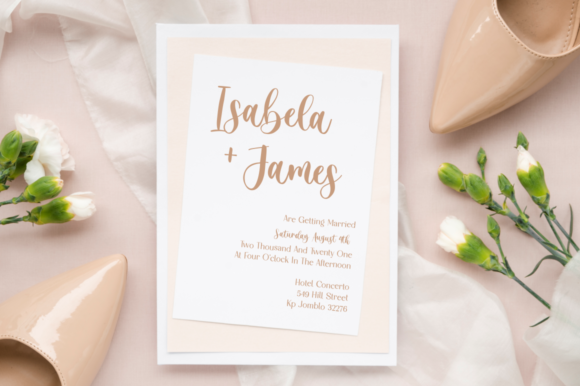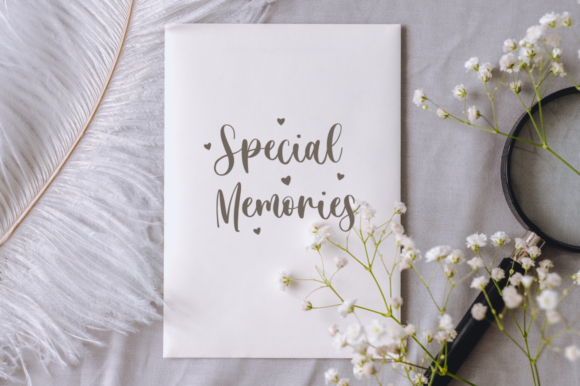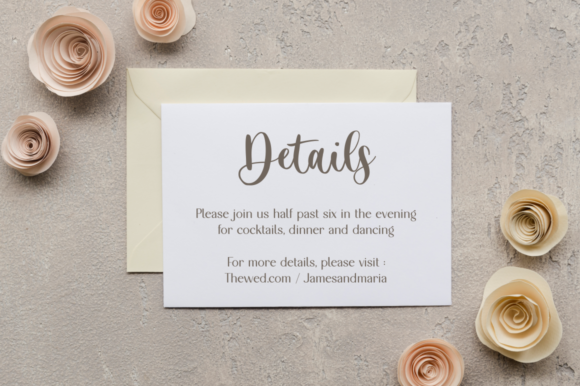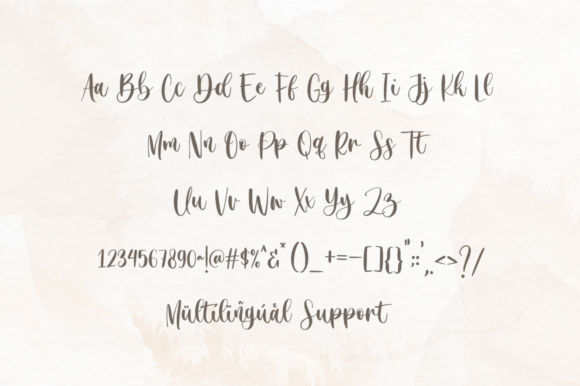
About Just Overthink Font
Indulge in the charm of Just Overthink, a sweet and cursive handwritten font that exudes a gentle and romantic essence. With its soft curves and flowing strokes, this font adds a touch of elegance and beauty to any design idea. Whether you’re working on wedding invitations, greeting cards, or any other project that requires a romantic and joyful touch, Just Overthink will elevate your designs to new heights.
The cursive nature of Just Overthink gives it a graceful and fluid appearance. Each letter is carefully crafted with intricate details, creating a delightful visual experience. The curves and loops of the font create a sense of movement and liveliness, making it a perfect choice for projects that aim to evoke emotions and convey a romantic atmosphere.
Just Overthink effortlessly enhances a variety of design ideas. From wedding invitations and love letters to stationery and social media graphics, this font brings a touch of sophistication and warmth to your projects. Its versatility allows it to adapt to different themes and styles, making it a versatile addition to your font library.
With Just Overthink, your designs will radiate a sense of joy and beauty. The font’s gentle and cursive style adds a touch of whimsy and romance, capturing the hearts of your audience. Each letter carries its own unique charm, making your projects stand out with a personalized and heartfelt touch.
Whether you’re creating digital designs or tangible crafts, Just Overthink brings a sense of elegance and joy to every aspect of your work. Its smooth and flowing nature creates a harmonious rhythm throughout your designs, resulting in a visually captivating experience for your viewers.
Just Overthink is not just a font; it’s a tool to express emotions and create memorable experiences. Its cursive handwriting style adds a personal and intimate feel to your projects, making them more relatable and engaging. The font invites your audience to immerse themselves in the beauty of your designs and embrace the emotions they evoke.
Embrace the gentle beauty of Just Overthink and let it inspire your creativity. Whether you’re designing for a special occasion or simply want to add a touch of romance to your everyday projects, this font is the perfect choice. Allow it to infuse your designs with joy, elegance, and a hint of whimsy. Just Overthink is your companion in creating heartfelt and captivating designs that leave a lasting impression.